Fancy Pixel Fonts Collection
One of the most wanted typography fonts is the pixel fonts, this type of fonts is useful from many applications either in desktop ot mobile devices applications.
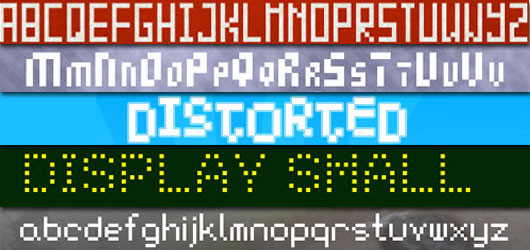
It is 13 Pixel Font in numbers all are different from each other.
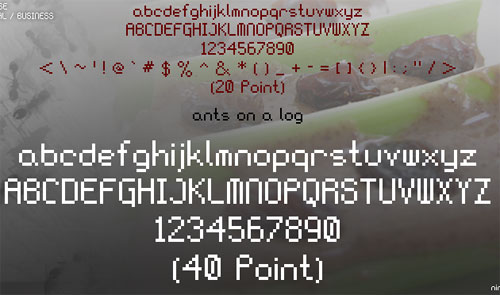
A collection of pixel fonts includes lowercase, capitols, numbers + extra characters
font sized best in..
10 pt. (original size)
20 pt.
40 pt.
80 pt.
160 pt.
320 pt.
and so on…
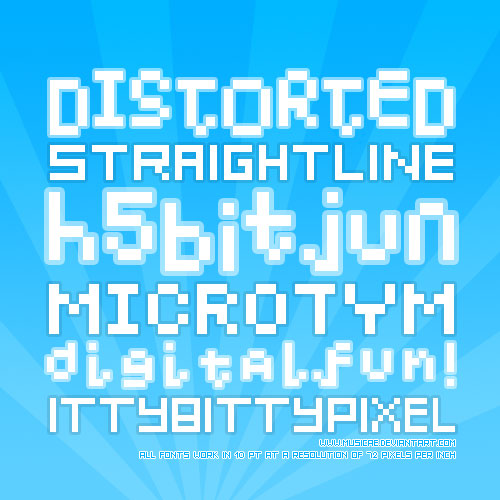
A collection of pixel fonts
if using a resolution of 72, fonts work at the size of 10pt
if using a resolution of 200, fonts work at the size of 3.6 or 3.7pt
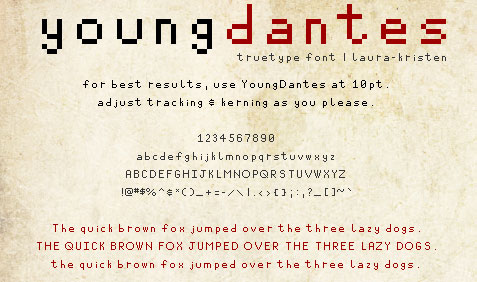
A pixel font. YoungDantes. It’s made to be used small! As the preview image suggests, it looks best at 10pt.
This pixel Font was created to mainly for capital letters, but you will found also a set of lowercase letters as well. Also includes 0-9 and !@#$%^&*()_+-=[]:”‘,.
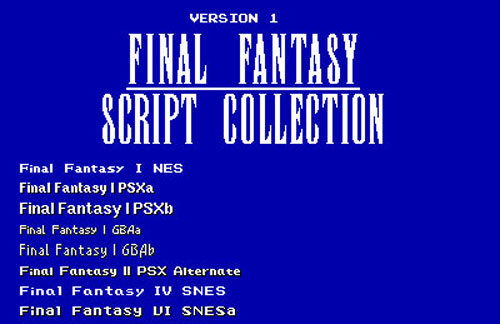
The replica pixel fonts from various Final Fantasy games. I
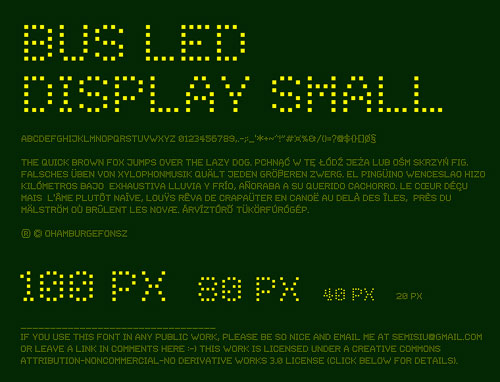
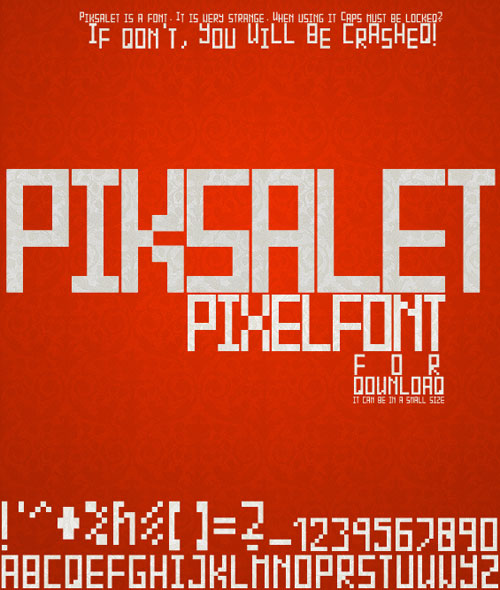
Amazing collection of pixel fonts .
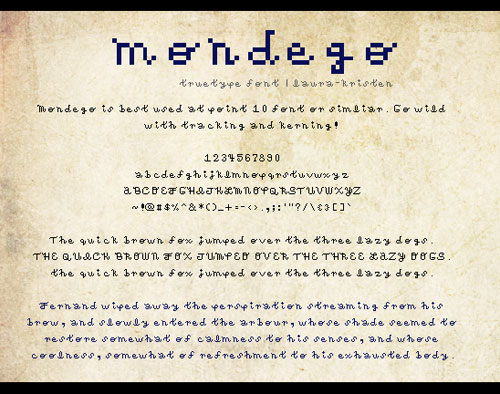
fance pixel font . enjoy it